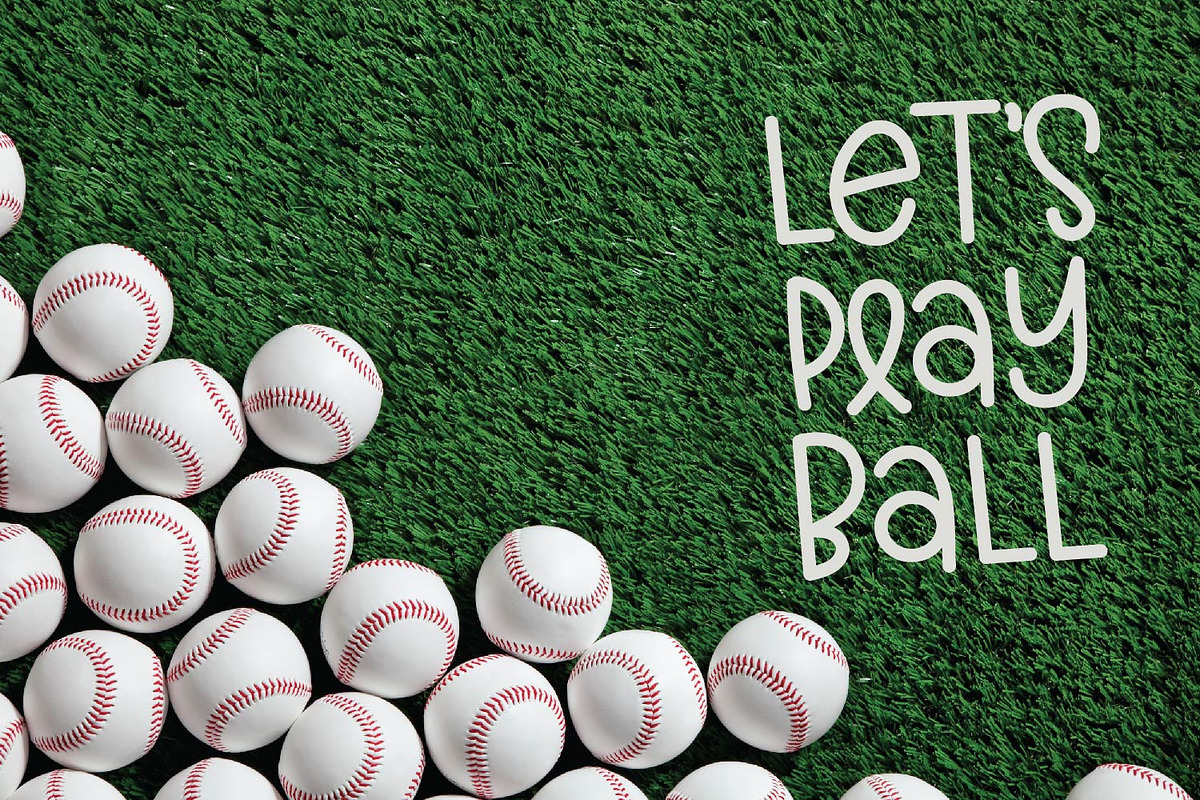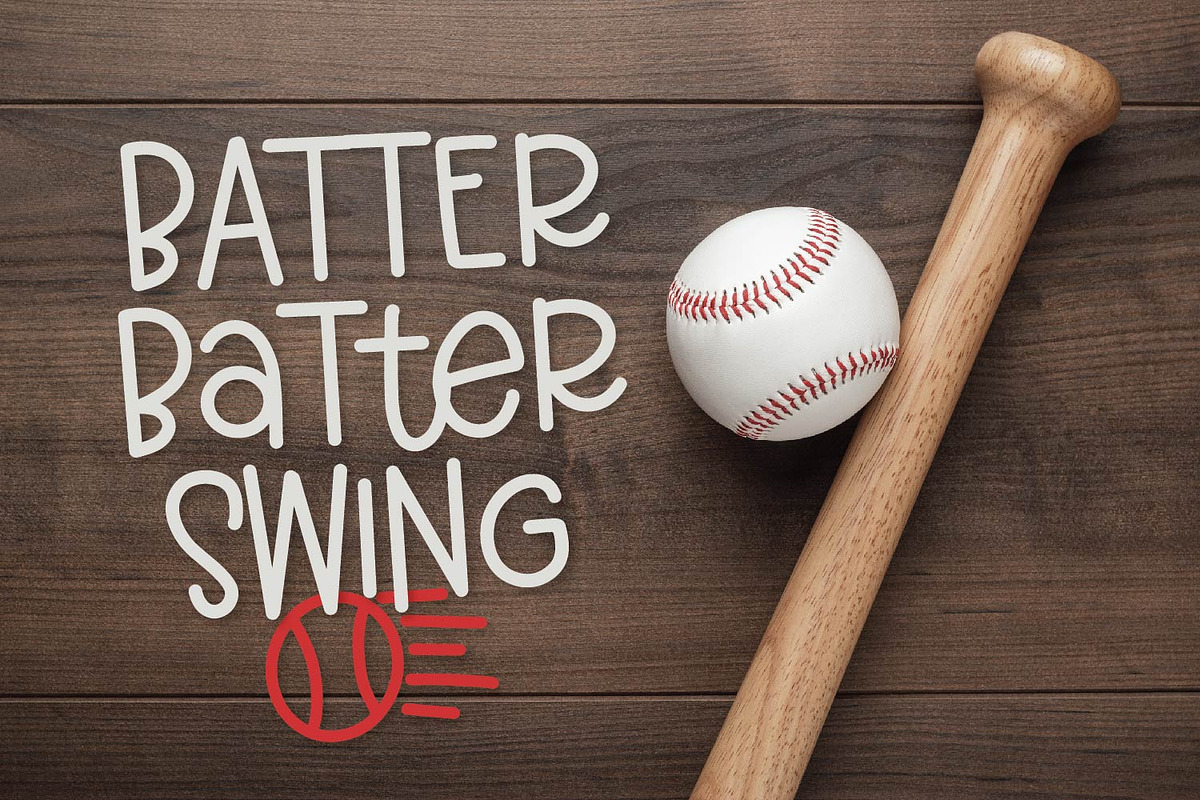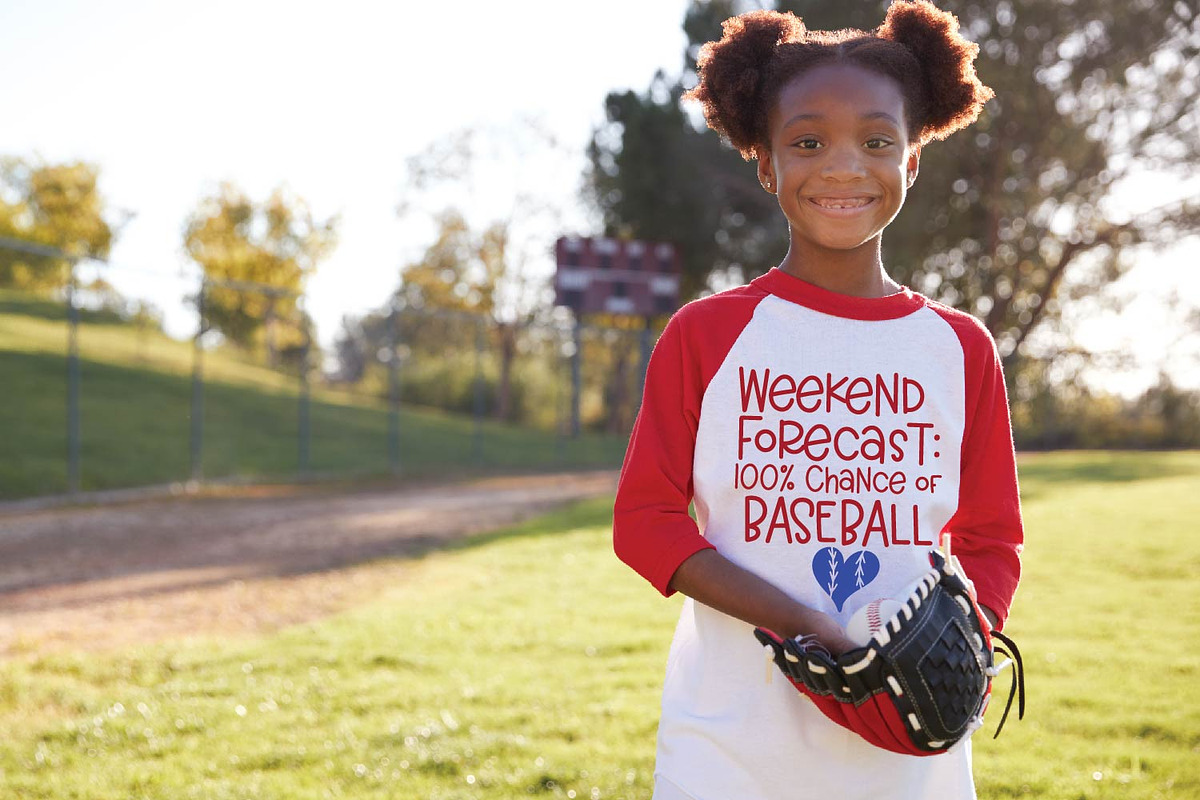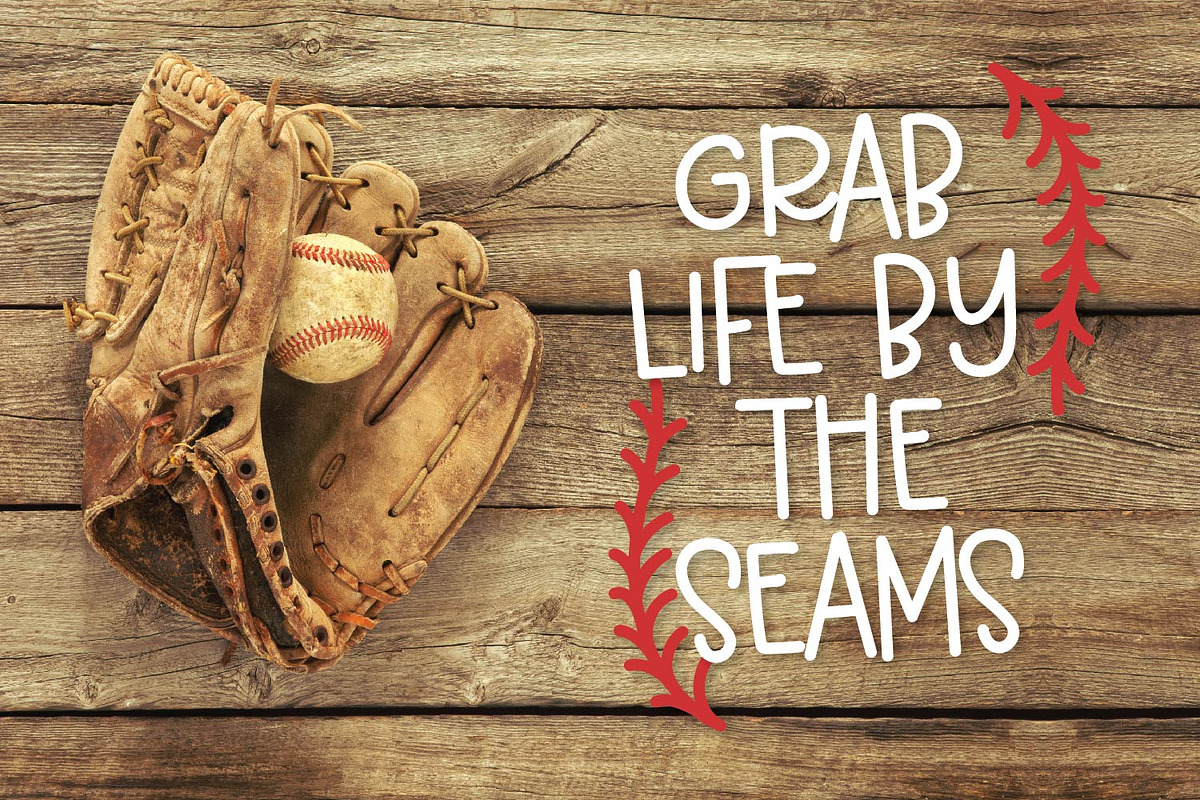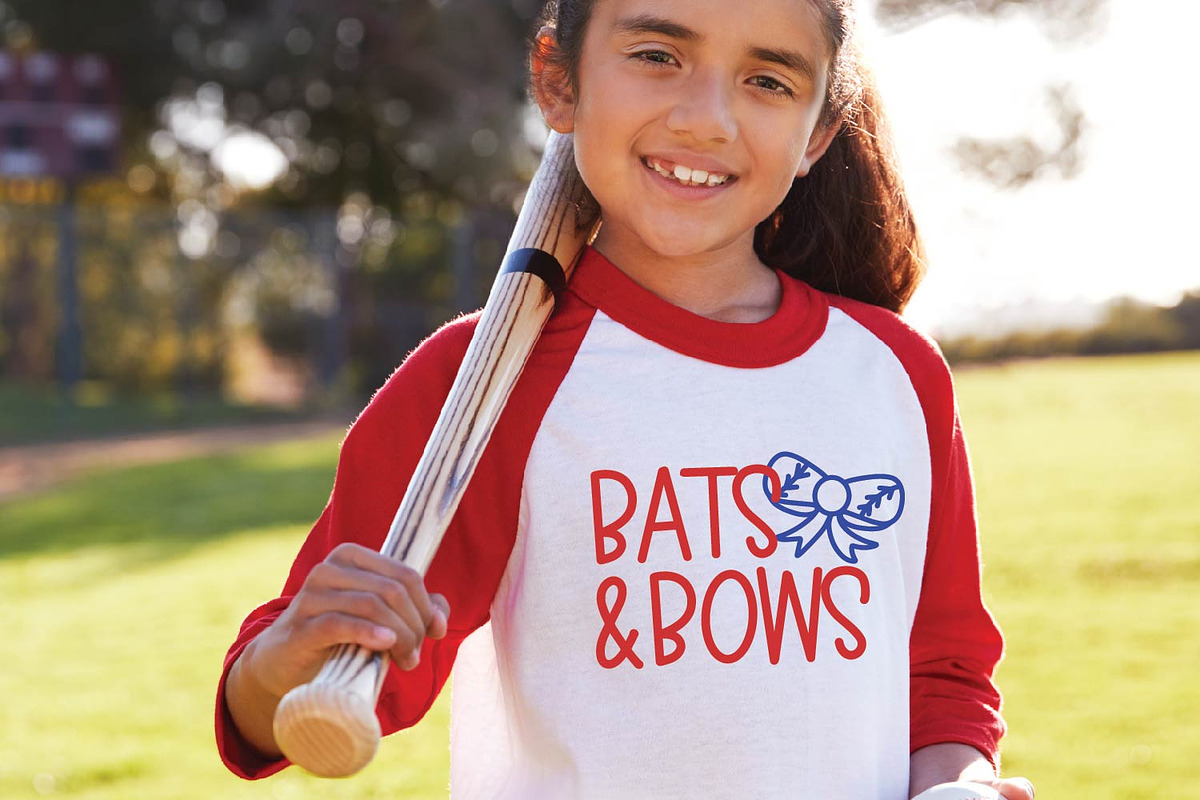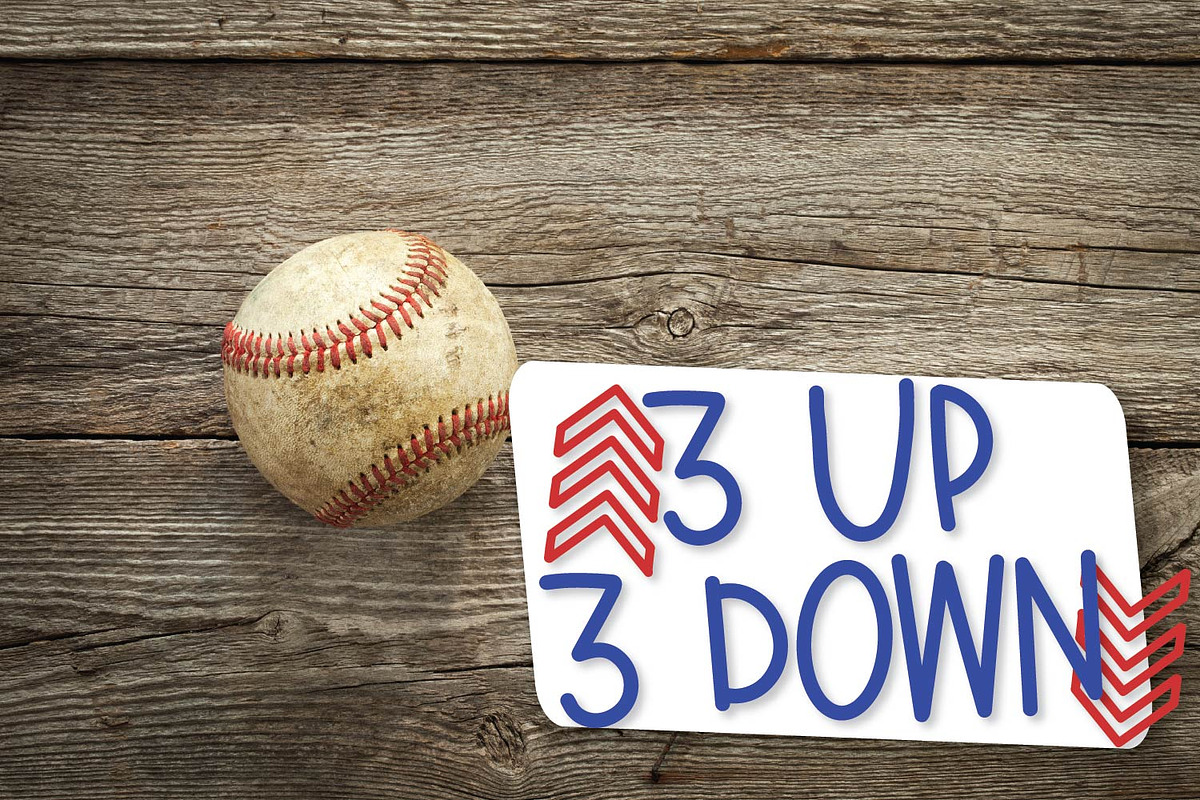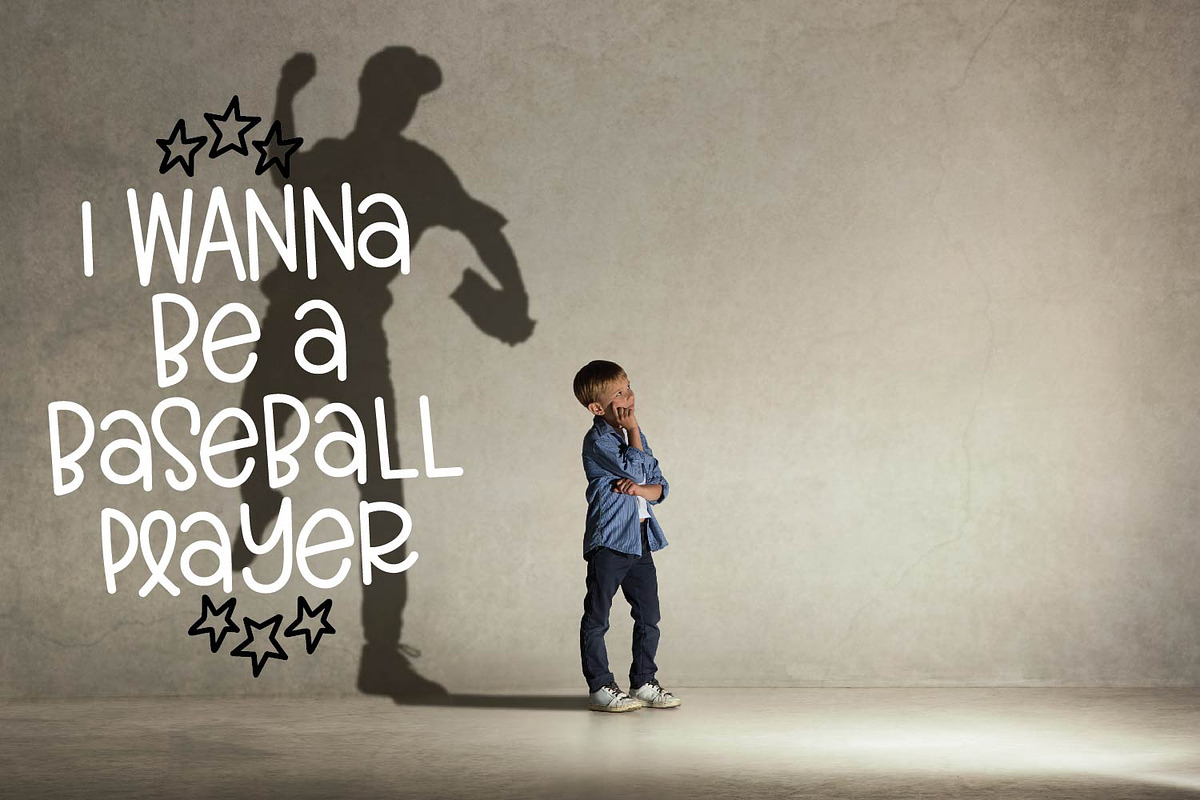
Baseball Momma - A Font Duo
Baseball Momma A Font Duo by CraftyLittleNodes is a font selected for branding, posters, packaging, typography.
Why Baseball Momma - A Font Duo is worth a look
Baseball Momma - A Font Duo by CraftyLittleNodes fits naturally into Branding, posters, packaging, typography.